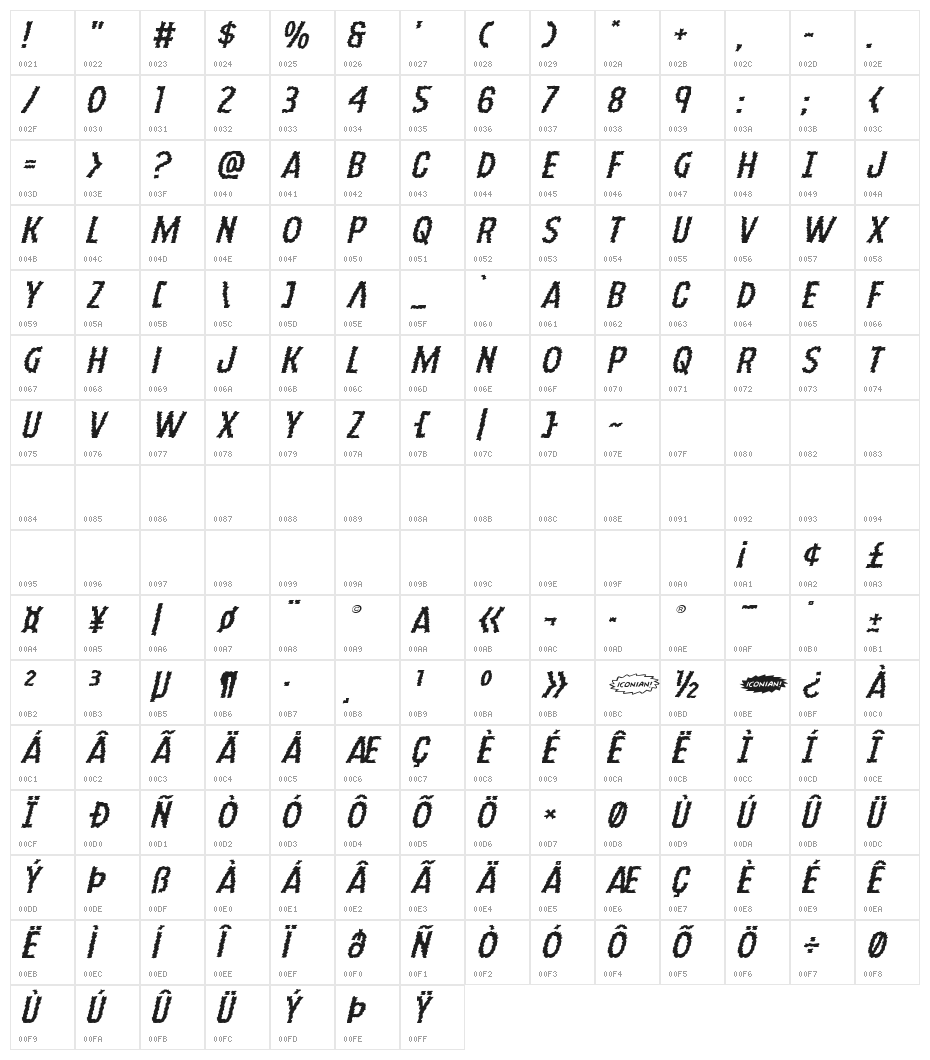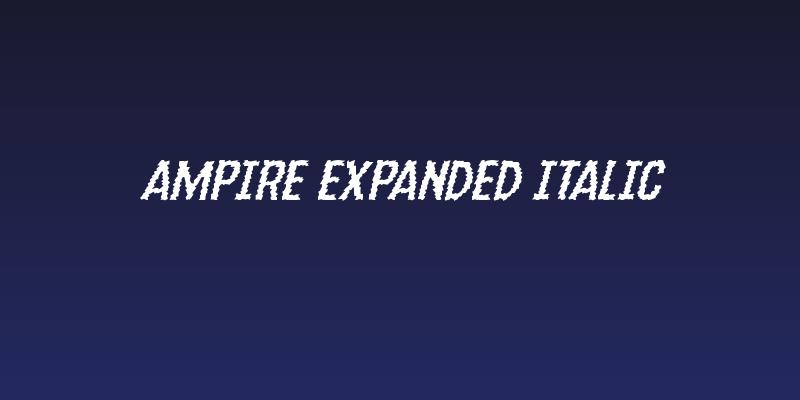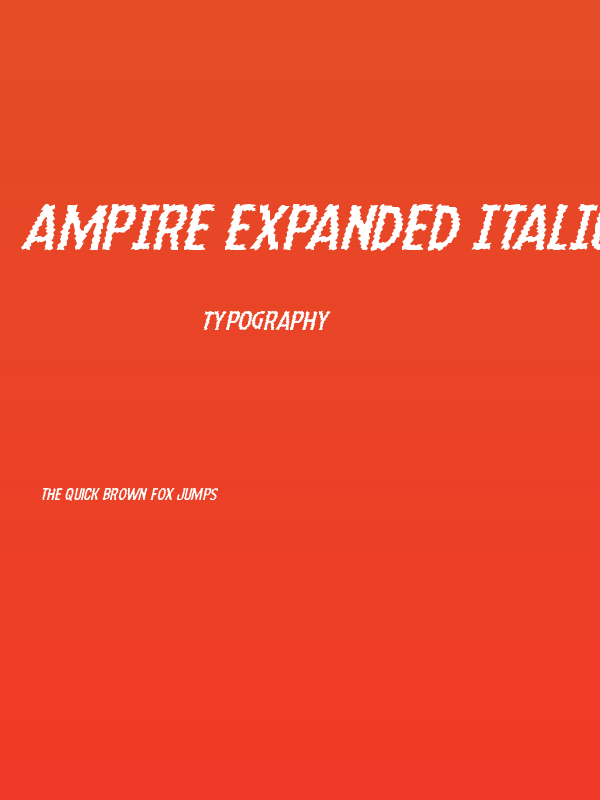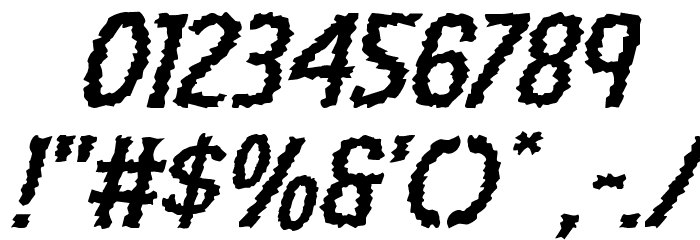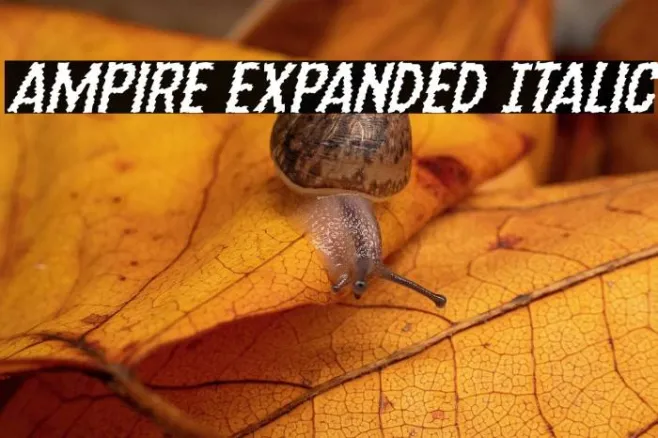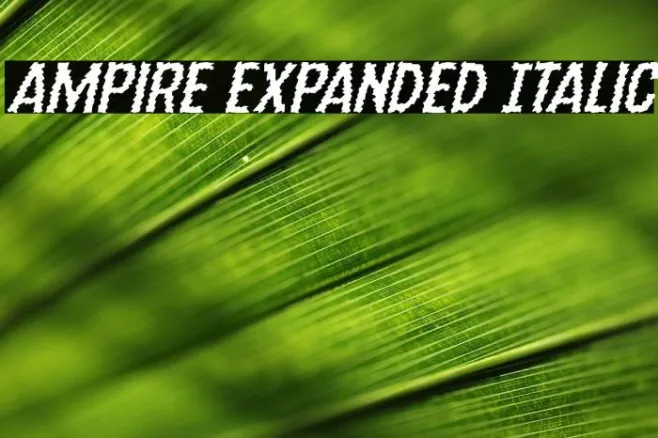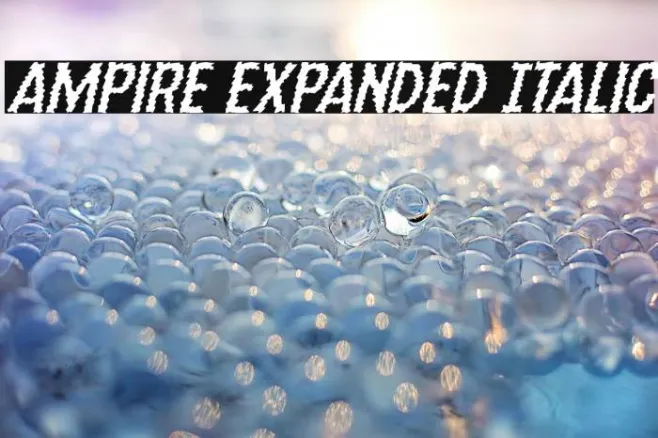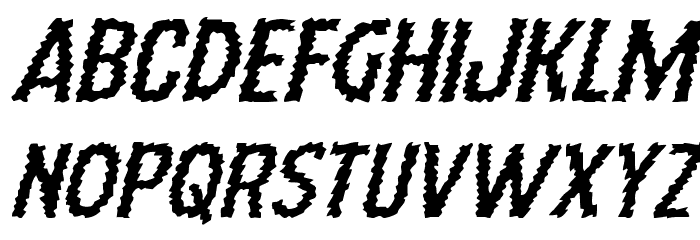
Ampire Expanded Italic Font
Ampire Expanded Italic Description
This font features a bold and dynamic style with an italic slant, creating a sense of movement and energy. The characters are expanded, giving them a wide appearance that enhances their presence on the page. The edges are jagged and irregular, adding a unique, edgy texture to the text. This design choice makes the font stand out, making it ideal for attention-grabbing headlines or titles. The uppercase and lowercase letters maintain a consistent style, ensuring readability while still offering a distinct visual impact. The numerals and special characters follow the same bold and jagged design, providing a cohesive look across all text elements.
| Overall Style | Modern, Edgy |
| Proposed Projects | Ideal for posters, album covers, branding materials, and any project requiring a bold, eye-catching typeface. |